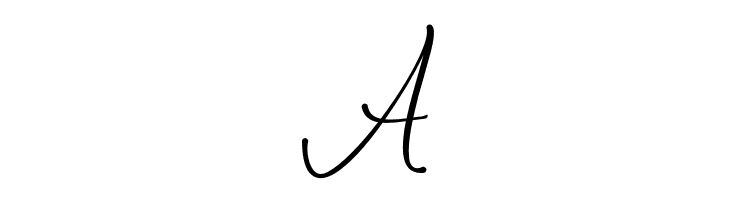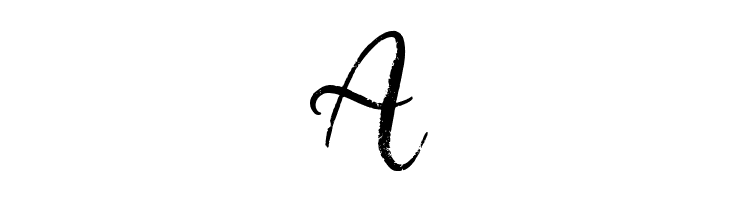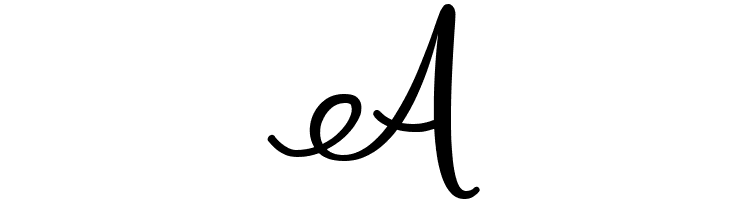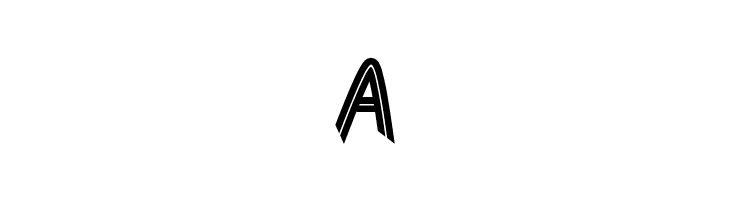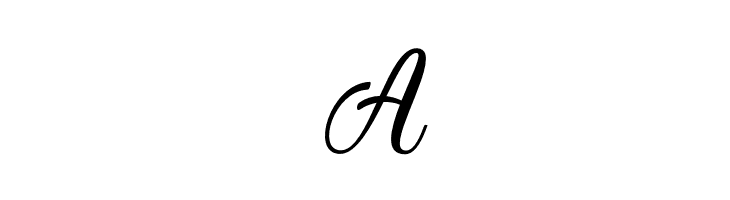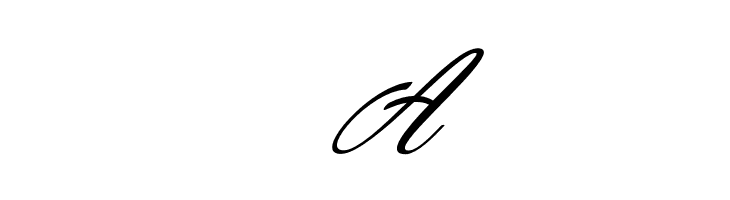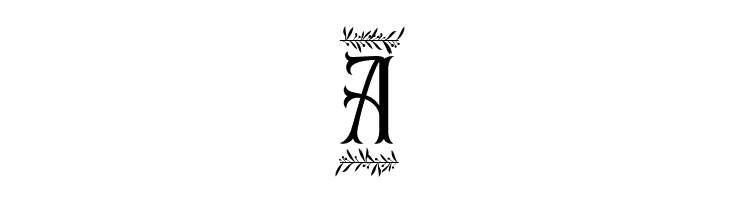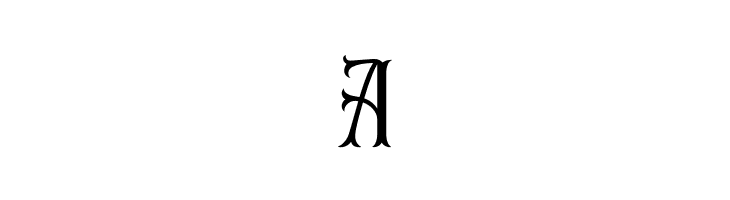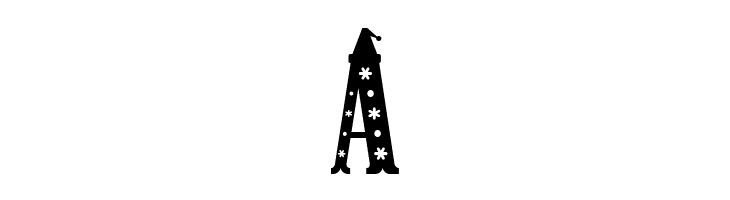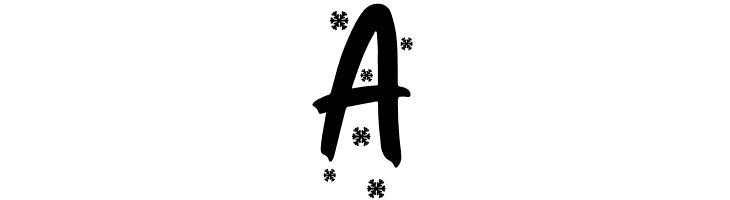
A flowing, cursive script font with elegant, connected strokes.
A festive, elegant cursive script with bold, high-contrast strokes.
A playful and whimsical script font with bold, rounded letters and decorative swirls.
A festive, decorative font with star patterns and hat-like accents on uppercase letters.
A festive and elegant script font with flowing, cursive letters and whimsical charm.
A playful and elegant script font with flowing, cursive letterforms.
A playful, festive handwritten script with bold, rounded characters.
A festive, cursive script font with bold strokes and elegant loops.
A festive, decorative script font with sparkling accents and elegant flourishes.
A lively and expressive handwritten font with fluid, dynamic strokes.
A lively and expressive script font with flowing, cursive letterforms.
A whimsical and elegant script font with a hand-drawn, calligraphic style.
A festive, leaf-patterned font with bold, rounded strokes and a playful style.
A tall, slender, and whimsical font with a playful style.
A playful, tall, and narrow font with rounded edges and consistent stroke width.
A festive, decorative font styled like Christmas light bulbs, perfect for holiday-themed projects.
A playful, hand-drawn font with rounded, bold characters.
A whimsical, festive script font with elegant swirls and loops.
A playful, handwritten-style font with tall, narrow letters and rounded edges.
A playful, cursive script font with a festive and elegant style.
A bold, decorative font with a festive, angular design.
A charming, elegant script font with a handwritten, festive style.
A festive, elegant script font with flowing, calligraphic style.
A festive and elegant cursive font with decorative swirls, perfect for holiday themes.
A playful, handwritten font with bold, flowing strokes and a whimsical style.
A graceful script font with fluid, cursive strokes and elegant curves.
A playful, hand-drawn font with tall, narrow letters and a whimsical style.
A bold, flowing script font with a festive, handwritten style.
A festive handwritten script font with snowflake accents, perfect for holiday designs.
A playful and festive font with bold, curvaceous letters perfect for holiday themes.
An elegant, flowing script font with dynamic curves and decorative flourishes.
A festive, elegant script font with flowing, calligraphic strokes and decorative flourishes.
An ornate, festive font with decorative flourishes and holiday-themed embellishments.
An ornate and decorative Blackletter-style font with intricate details.
A playful, hand-drawn font with tall, narrow letters and a whimsical style.